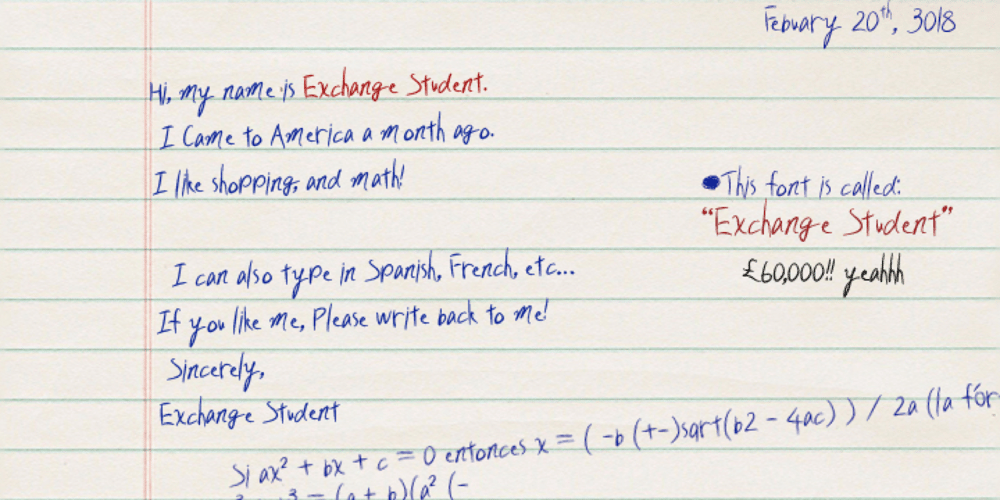
Exchange Student Font Family was designed by Natsuko Hayashida and published by Okaycat. Exchange Student contains 1 styles and family package options. I used to be an exchange student in Canada. I noticed my handwriting was quite different from the handwriting of people who are from countries where the roman alphabet is used. So, I thought why not make a font based on my natural handwriting. This font can be used whenever a cute and different style like mine is needed. “Exchange Student” is extended, containing the full West European diacritics & a full set of ligatures, making it suitable for multilingual environments & publications. Enjoy!